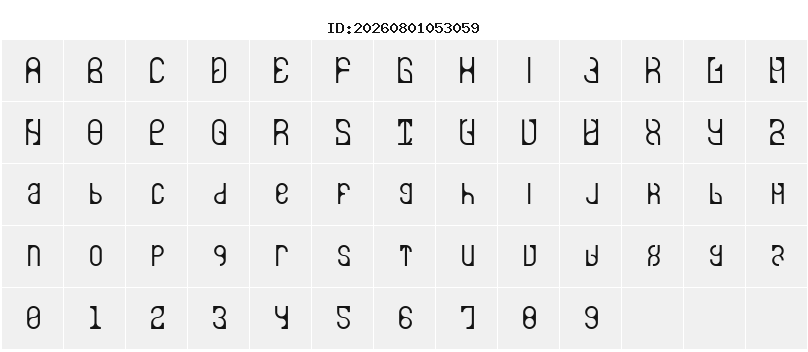
• Font Name: LVDC auroradance
About LVDC auroradance.ttf
LVDC auroradance.ttf is a modern, elegant sans-serif font designed for ultimate readability and visual harmony. Perfect for branding, headlines, web design, and print materials.